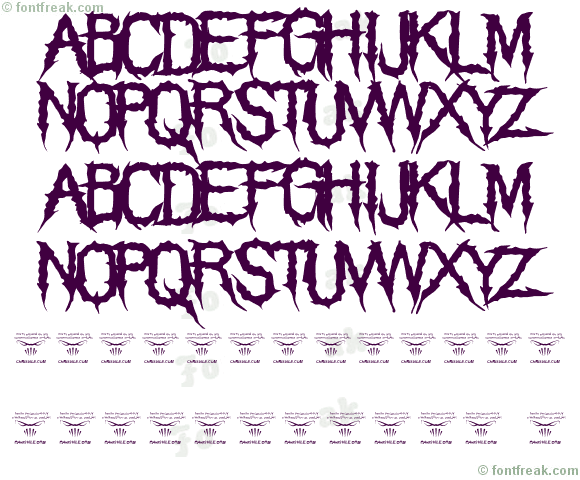
The Grim Raiders Regular
The Grim Raiders Regular font, crafted by Chris Vile, is a striking display typeface that captivates with its unique, edgy character. This font falls into the decorative category, showcasing an eye-catching design that is perfect for projects requiring a bold and adventurous flair. With its jagged edges and irregular strokes, The Grim Raiders Regular exudes a sense of rebellion and creativity, making it an excellent choice for designs that need to stand out.
Visually, the font features a heavy stroke weight with dramatic contrast, creating a dynamic appearance that draws attention. The spacing is tight, enhancing the impact of each letter while maintaining legibility. The decorative elements inherent in the design—such as the sharp angles and uneven lines—contribute to its overall theme of intensity and excitement, embodying the spirit of adventure.
This font is particularly well-suited for a variety of specific use cases. It can make an unforgettable statement on movie posters, especially for horror or action films, capturing the viewer’s attention instantly. Additionally, it works wonderfully for band logos or album covers in the rock or metal genres, lending a gritty aesthetic to musical branding. The Grim Raiders Regular is also ideal for themed events, such as Halloween parties, where its distinctive style can enhance promotional materials. Furthermore, small business owners looking to create a memorable brand identity will find this font useful for merchandise or promotional graphics.